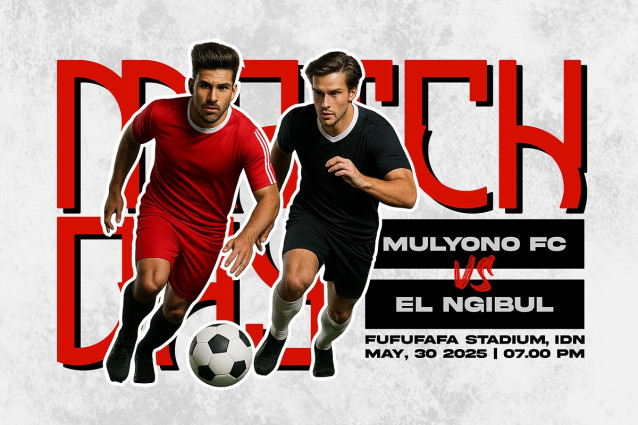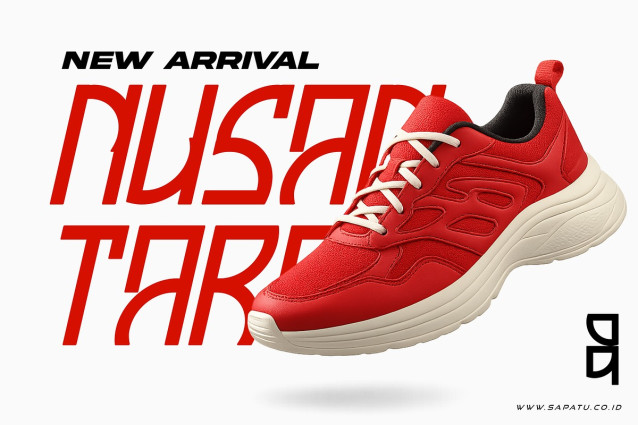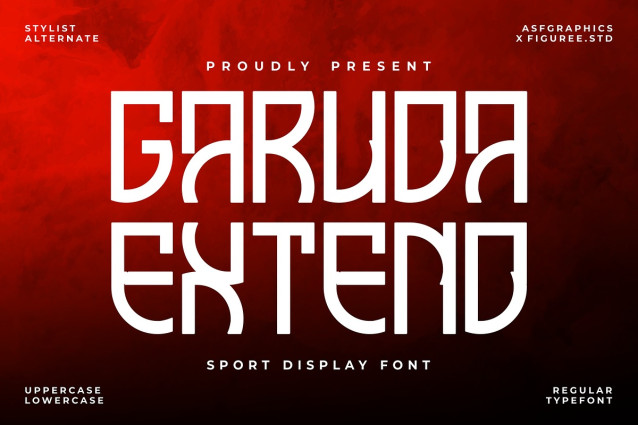
Garuda Extend Font
Garuda Extend Font is a dynamic sports display font built to deliver maximum impact and speed. With its wide stance, powerful letterforms, and extended proportions, this font channels energy and motion—perfect for sports branding, athlete posters, game-day graphics, and bold editorial headlines.